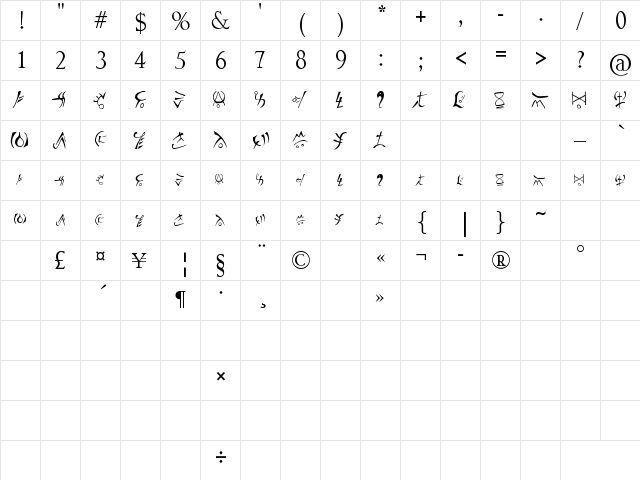
Elabeth Script Regular
Design Context for Elabeth Script Typeface
Elabeth Script brings a calligraphic fluidity to the page — its connecting strokes and expressive curves give it an unmistakably human quality.
Font Pairing: Combine Elabeth Script with a simple geometric sans for maximum contrast — the tension between flowing curves and clean structure is a classic typographic pairing.
Pro Tip: Pair Elabeth Script with a clean sans-serif for supporting text. The contrast between fluid script and geometric structure creates an elegant typographic hierarchy.